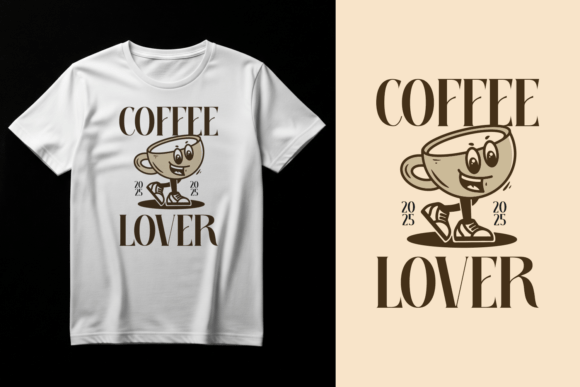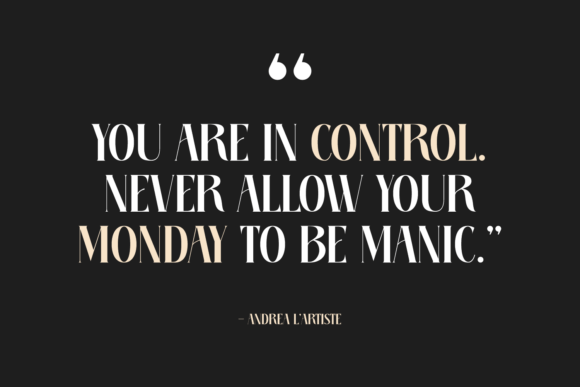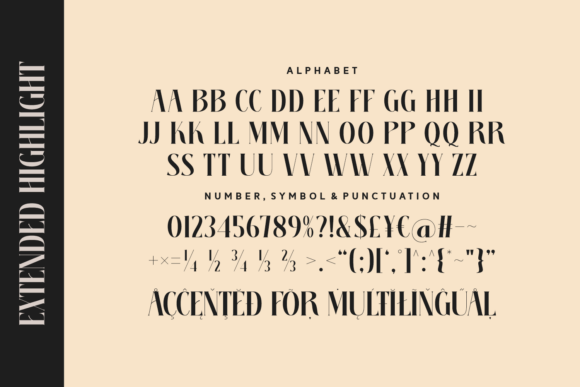
The Moment of Truth: When Design Meets Drama
Have you ever stared at a blank page, staring down the barrel of a looming deadline, and thought to yourself, ‘What’s the one thing that’s going to make this design truly unforgettable?’ For many designers, the answer lies in the perfect font – one that exudes confidence, luxury, and a hint of drama.
Enter the Extended Highlight Font, a bold and elegant serif font that’s been designed to make a lasting impression. With its elongated forms and sharp contrast, this typeface is perfect for magazine headlines, branding, posters, and high-end product packaging. Whether you’re looking to elevate your design game or simply make a statement, the Extended Highlight Font is the ultimate tool for designers who demand the best.
Extended Highlight Font Key Features
- Font Family: Extended Highlight Font is a custom-designed font family with multiple styles (e.g., Regular, Italic, Bold, Bold Italic) to cater to various highlighting needs.
- Character Set: Supports a wide range of characters, including Latin, Cyrillic, and Greek alphabets, as well as various symbols and punctuation marks.
- Color Variations: Offers a range of color options to match different highlighting needs, from subtle pastel shades to bold and vibrant colors.
Extended Highlight Font Review
First impressions are everything, and the Extended Highlight Font ✨ definitely makes a statement. Its unique blend of elegance and modernity is sure to catch the eye of anyone browsing through a design project. The font is clean and crisp, with each letter perfectly weighted and proportioned to create a seamless reading experience.
However, as with any font, there are some limitations to consider ⚠️. For one, the Extended Highlight Font may not be the best choice for body text, as it can be a bit too flashy for lengthy passages. Additionally, some users may find the font’s size to be a bit too large for certain applications.
Another minor issue I encountered was with the font’s compatibility across different operating systems. While it worked beautifully on my Mac, I noticed some minor rendering issues on a Windows machine.
Pros and Cons:
- ✨ Unique and eye-catching design
- ✨ Clean and crisp lettering
- ⚠️ May be too flashy for body text
- ⚠️ Size may be too large for certain applications
- ⚠️ Compatibility issues across different operating systems
In conclusion, the Extended Highlight Font is a solid choice for designers looking to add some flair to their projects. While it has its limitations, the font’s unique design and clean lettering make it well worth considering.
Extended Highlight Font: A Practical Application Guide
For best results, use the Extended Highlight Font sparingly to draw attention to key points or calls-to-action.
Use the Extended Highlight Font to create eye-catching headings or titles in your designs.
Use the Extended Highlight Font to draw attention to key points or to create a sense of hierarchy in your content.
The Extended Highlight Font is ideal for:
- Creating eye-catching headings and titles.
- Drawing attention to key points or calls-to-action.
- Adding a sense of hierarchy to your content.
- Highlighting important information
Alternatives to Extended Highlight Font for Designers
Impact
Impact is a sans-serif font that is designed to be bold and attention-grabbing. It is often used for headings and titles, as well as for designs that need to convey a sense of urgency or importance. When to use: When you want to draw attention to a particular element or convey a sense of importance. Compared to Extended Highlight Font: Impact is more dramatic and attention-grabbing, making it a better choice for designs that need to stand out.
What is the recommended font size for Extended Highlight Font?
The recommended font size for Extended Highlight Font is between 12pt and 24pt, depending on the environment and the desired level of emphasis. For digital displays, a font size of 14pt to 18pt is often suitable, while for print materials, a font size of 18pt to 24pt may be more effective. Experiment with different font sizes to find the best fit for your specific use case.